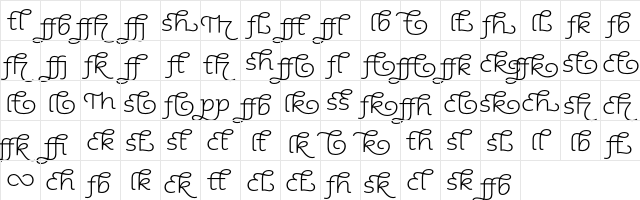
AspectSwashLigatures Light Font Preview
Design Context for AspectSwashLigatures Typeface
AspectSwashLigatures brings a calligraphic fluidity to the page — its connecting strokes and expressive curves give it an unmistakably human quality. Its slender proportions lend an understated elegance to any composition.
Font Pairing: Combine AspectSwashLigatures with a simple geometric sans for maximum contrast — the tension between flowing curves and clean structure is a classic typographic pairing.
Pro Tip: Pair AspectSwashLigatures with a clean sans-serif for supporting text. The contrast between fluid script and geometric structure creates an elegant typographic hierarchy.